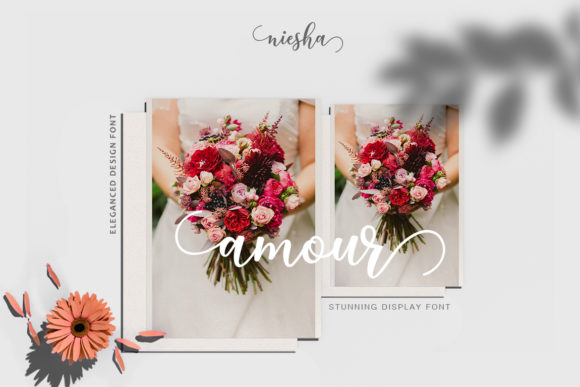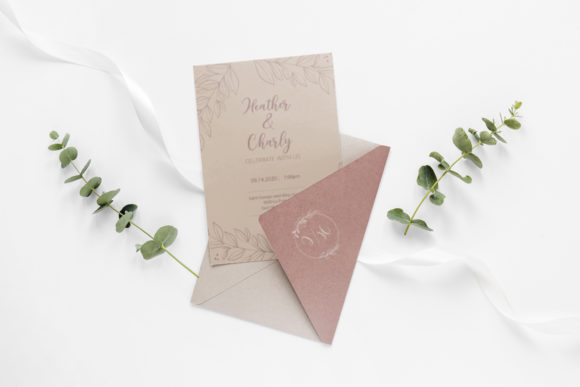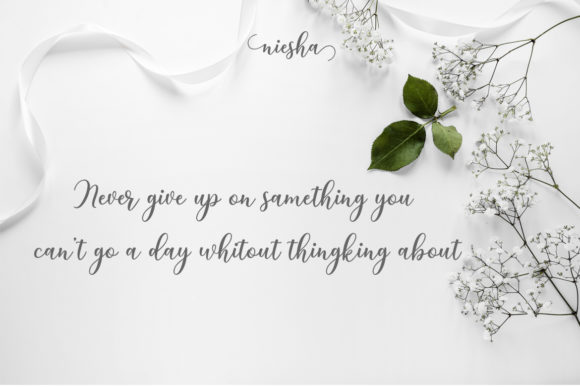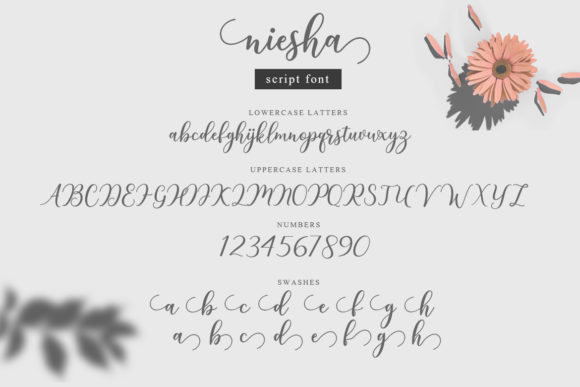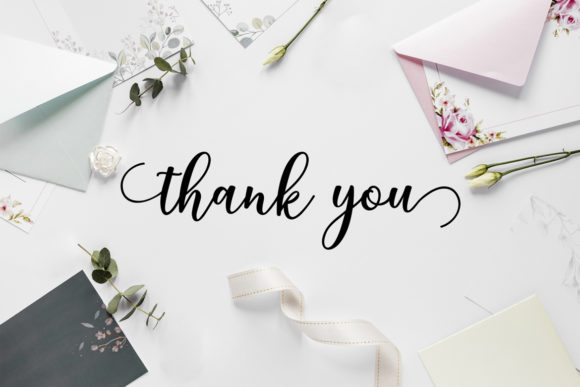
Introduction to Niesha Font
Have you ever been working on a creative project, pouring your heart and soul into it, only to realize that the right design element is missing? You’ve scoured the internet, browsed through design resources, and downloaded a plethora of fonts, but none seem to capture the essence of your idea. That’s where Niesha Font comes in – a game-changing addition to any designer’s toolkit.
As a free download, Niesha Font is a treasure trove of creative possibilities. Its high-quality design and transparent background make it a versatile asset for any project, from Instagram posts to DIY crafts. This gorgeous handwritten font is a masterclass in balance, with gorgeous swashes and ligatures that add a touch of elegance to any design.
Whether you’re a seasoned designer or a hobbyist, Niesha Font is a valuable resource that will elevate your creative projects to new heights. Its friendly feel and high-quality design make it an instant favorite among designers, and its free availability makes it accessible to everyone.
Key Features of Niesha Font
- High-quality design resource ideal for creative projects, including logos, branding, and marketing materials.
- Features a transparent background, allowing for easy customization and layering in design projects.
- Designed with a unique aesthetic, Niesha Font offers a distinctive look that can elevate any creative project.
- Perfect for designers, artists, and creatives working on a wide range of projects, from digital art to print materials.
Honest Review: Niesha Font
I recently had the chance to work with the Niesha Font, and I must say it’s a great addition to any designer’s arsenal. This free download is perfect for any creative project that requires a high-quality, elegant font.
Here are some things that work well with the Niesha Font:
- ✨ Beautiful, delicate script style that’s perfect for titles and headings
- ✨ Highly customizable, with a wide range of font sizes and styles to choose from
- ⚠️ The font doesn’t come with a transparent background, which can make it difficult to use on dark-colored backgrounds
- ⚠️ Some users have reported issues with the font’s kerning and spacing, although this was not a major issue for me
Overall, I’m really impressed with the Niesha Font. It’s a great design resource that’s perfect for any creative project. With its high-quality design and ease of use, it’s definitely worth checking out.
Use Niesha Font in conjunction with transparent background images to create a cohesive design. Experiment with different font combinations to add visual interest to your designs. Use the font in bold or italic styles to add emphasis to your text.
Niesha Font is perfect for a variety of creative projects, including:
– Blog posts and articles
– Business cards and brochures
– Presentations and documents